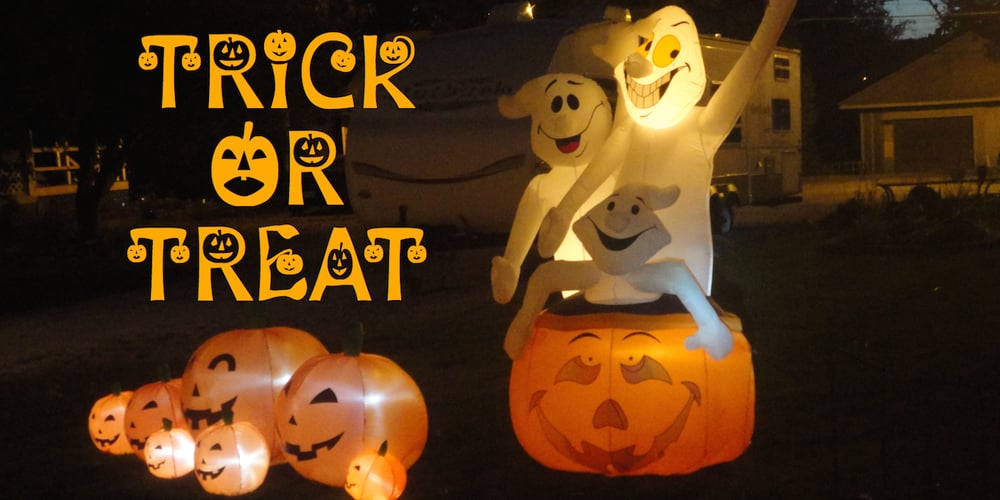
HeyPumpkin Font Family was designed by Robert Schenk and published by Ingrimayne Type. HeyPumpkin contains 1 styles and family package options. HeyPumkin is a letterbat font designed for use in the late autumn, when the leaves are falling and the harvest is underway. October 31 is an especially good time to use it. The upper- and lower-case letters are almost identical. If you want a version of this face without the pumpkins, try Ingone. Buried in the font is another set of letters on pumpkins. They are on unicode characters in the 2400 block, circled digits and letters. These characters can also be accessed using the OpenType stylistic sets feature. (The alternative characters are further developed in a separate typeface, part of the InsideLetters family.)